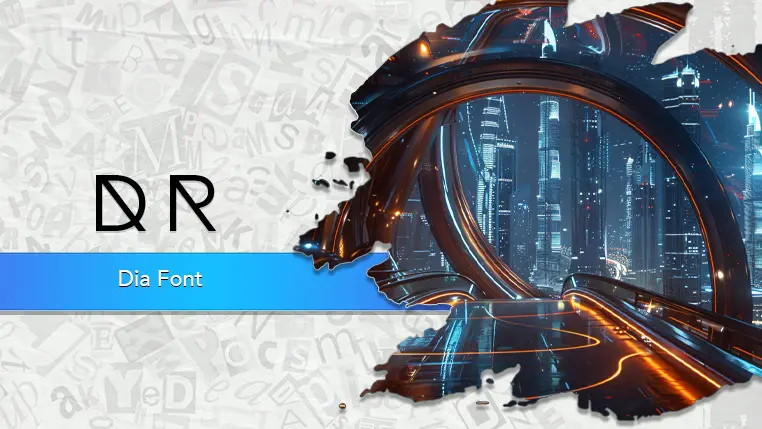
The Dia font family may be ideal for you if you enjoy working on an artistic design project. The lively, expressive look of this typeface, which was created by Tommy Larsen, makes it ideal for Its unique character makes it excellent for creating memorable and modern logos, especially for technology companies, gaming brands, or any business wanting a cutting-edge and distinct visual identity. Ideal for titles, movie posters, game covers, and promotional materials in the science fiction, fantasy, or cyberpunk genres. Also you can use on Album Art and Music Promotion poster. and other light-hearted visual projects.
Regular are the one primary font styles of the Dia font family. You may build dynamic, visually appealing text layouts with the distinct flair that each style offers. With crisp, readable lines and a relaxed tone.